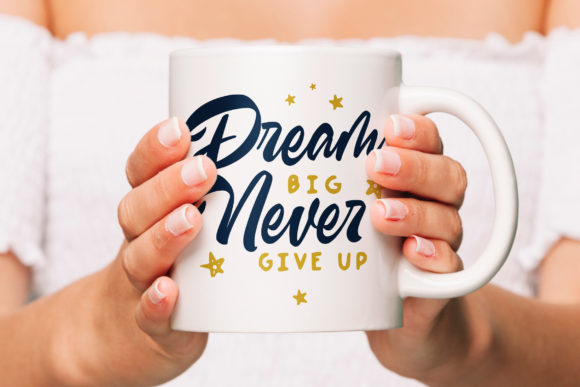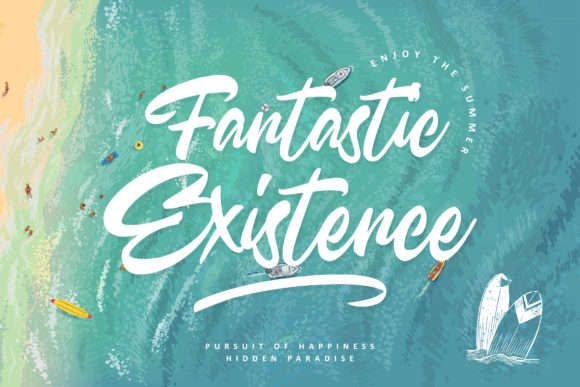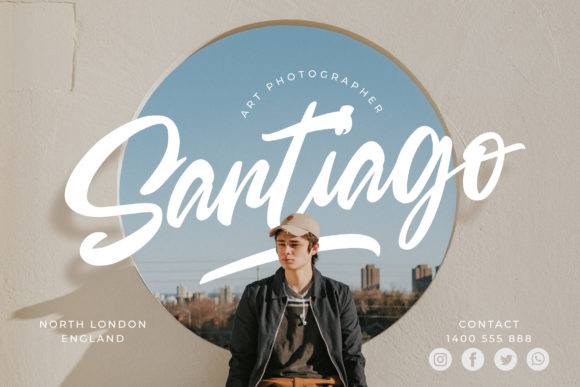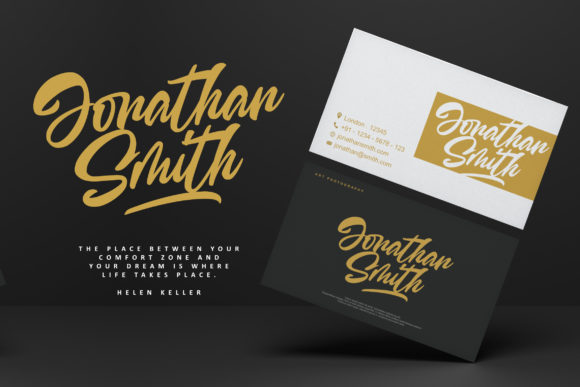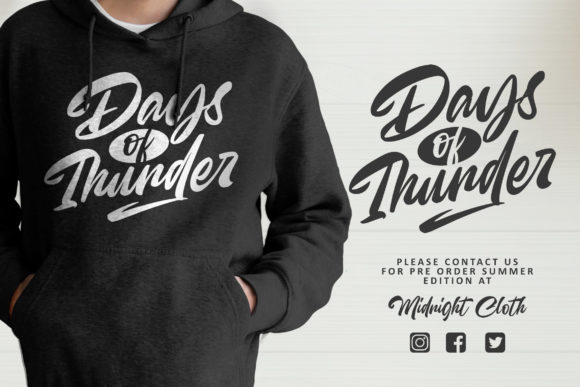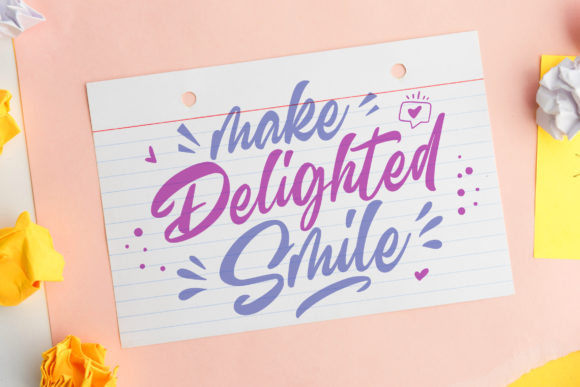
The Magic of Handwritten Fonts: Unlocking the Secrets of Chasing Miracles Font
Have you ever sat at your desk, staring blankly at a blank page, waiting for the perfect idea to strike? It’s that moment of creative clarity when everything falls into place, and the words start flowing effortlessly. For designers, that moment is like chasing a miracle – elusive, yet oh-so-worth it. And that’s exactly what Chasing Miracles Font is all about – capturing the essence of that magical moment and bringing it to life in your next project.
Chasing Miracles Font is a stunning, versatile script font that’s perfect for adding a touch of romance and whimsy to your designs. Whether you’re creating greeting cards, headlines, or any other project, this enchanting font is sure to leave a lasting impression. With its wide range of applications and ease of use, thanks to its PUA encoding, Chasing Miracles Font is a valuable addition to any designer’s toolkit.
Chasing Miracles Font Key Features
- Font Family: Chasing Miracles Font is a unique, hand-drawn script font designed to evoke a sense of whimsy and elegance.
- Character Set: Includes a wide range of characters, including uppercase and lowercase letters, numbers, punctuation marks, and special characters.
- Unique Characteristics: Features a distinctive, hand-crafted feel with subtle imperfections and variations, giving it a unique and personal touch.
Chasing Miracles Font Review
I recently had the opportunity to work with the Chasing Miracles font, and I must say it’s a mixed bag.
- Unique and Whimsical Design: The font has a distinct, dreamy quality to it that makes it perfect for creative projects, such as children’s books or advertising campaigns.
- High-Quality Vectors: The font files are well-constructed and easy to work with, making it a breeze to scale and manipulate the letters.
- Excellent for Hand-Drawn Text: The font’s hand-drawn style lends itself perfectly to creating a sense of imperfection and charm, making it ideal for projects that require a more personal touch.
- Limited Character Set: The font is missing some common characters, such as certain punctuation marks and special symbols, which can be a pain to work around.
- Not Ideal for Body Text: The font’s unique style can make it difficult to read in large blocks of text, making it better suited for headlines or titles.
Overall, I would say that Chasing Miracles is a solid choice for designers looking to add a touch of whimsy to their projects. While it may have some limitations, its unique design and high-quality vectors make it a valuable addition to any font collection.
Tips for Getting the Most Out of Chasing Miracles Font
Use the Chasing Miracles font for creative and inspirational projects, such as:
- Quotes and sayings
- Wedding invitations and decorations
- Business branding and marketing materials
Experiment with different font sizes, colors, and styles to create unique and eye-catching designs.